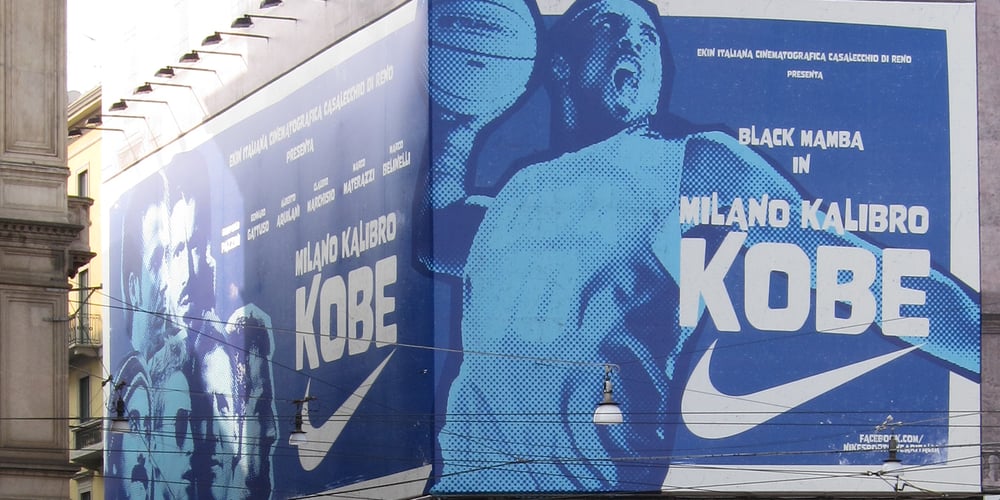
Nove Font Family was designed by Fabrizio Schiavi and published by FSD. Nove contains 1 styles and family package options. Designed for “Milano Kalibro Kobe” a Nike advertising campaign. A geometric font inspired by b-movie typography. The glyphs were designed using an unusual method: at a glance it seems a drafted design but if you look closely you will discover how much the geometry is complex.